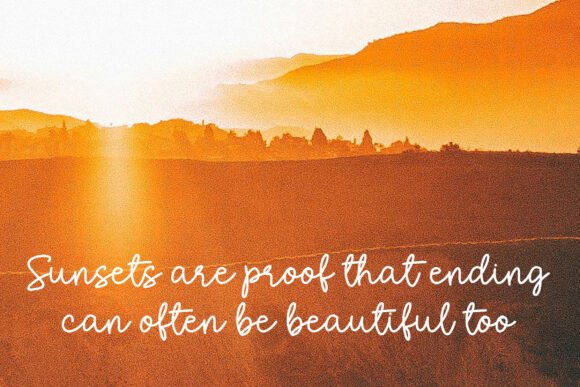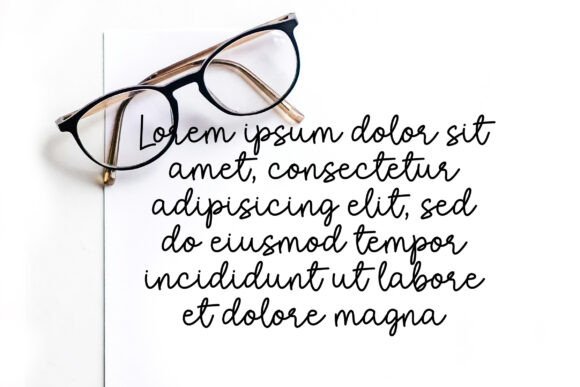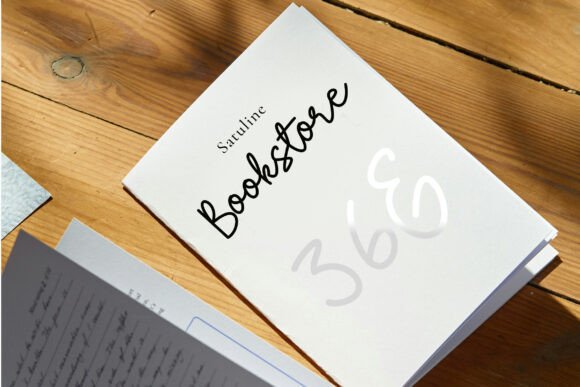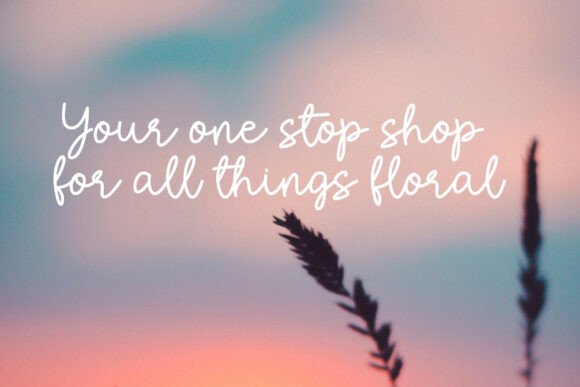
Introduction to Satuline Font
Have you ever had that moment when a spark of creativity strikes, and you envision the perfect design to bring your idea to life? For many designers, this moment is a thrilling experience that can be both exhilarating and intimidating. As you begin to conceptualize your project, you start searching for the perfect font to match your vision.
That’s where the Satuline Font comes in – a clean, beautiful monoline font that seamlessly connects each letter to create a harmonious visual experience. With its high-quality design and transparent background, this font is a valuable resource for any creative project. Whether you’re working on a personal or professional project, the Satuline Font is sure to elevate your design and make it stand out from the crowd.
Key Features of Satuline Font
- Features a transparent background for seamless integration
- Includes a comprehensive character set, making it suitable for a variety of creative projects
- Designed to be scalable, with a resolution of up to 72 dpi for clear readability
- Unique, modern aesthetic that sets it apart from other fonts in its class
Honest Review: Satuline Font
I recently had the chance to work with the Satuline Font, and I must say it’s a high-quality design resource that exceeded my expectations. The transparent background allows for seamless integration with any creative project, making it a versatile addition to my design toolbox.
- Unique, modern design that adds a touch of sophistication to any project ✨
- High-quality font files that ensure crisp, clear rendering
- Limited character set, which may not be ideal for projects requiring a wide range of languages ⚠️
- No bold or italic font options, which may limit its use in certain creative contexts
Overall, I’m impressed with the Satuline Font and would recommend it to designers seeking a modern, high-quality font for their creative projects. While it may have some limitations, its unique design and free download option make it a valuable addition to any design resource library.
Satuline Font is commonly used in branding, logos, graphics, and other design elements where a unique and elegant style is required. Its transparent background makes it ideal for creating visually appealing designs that stand out from the crowd.